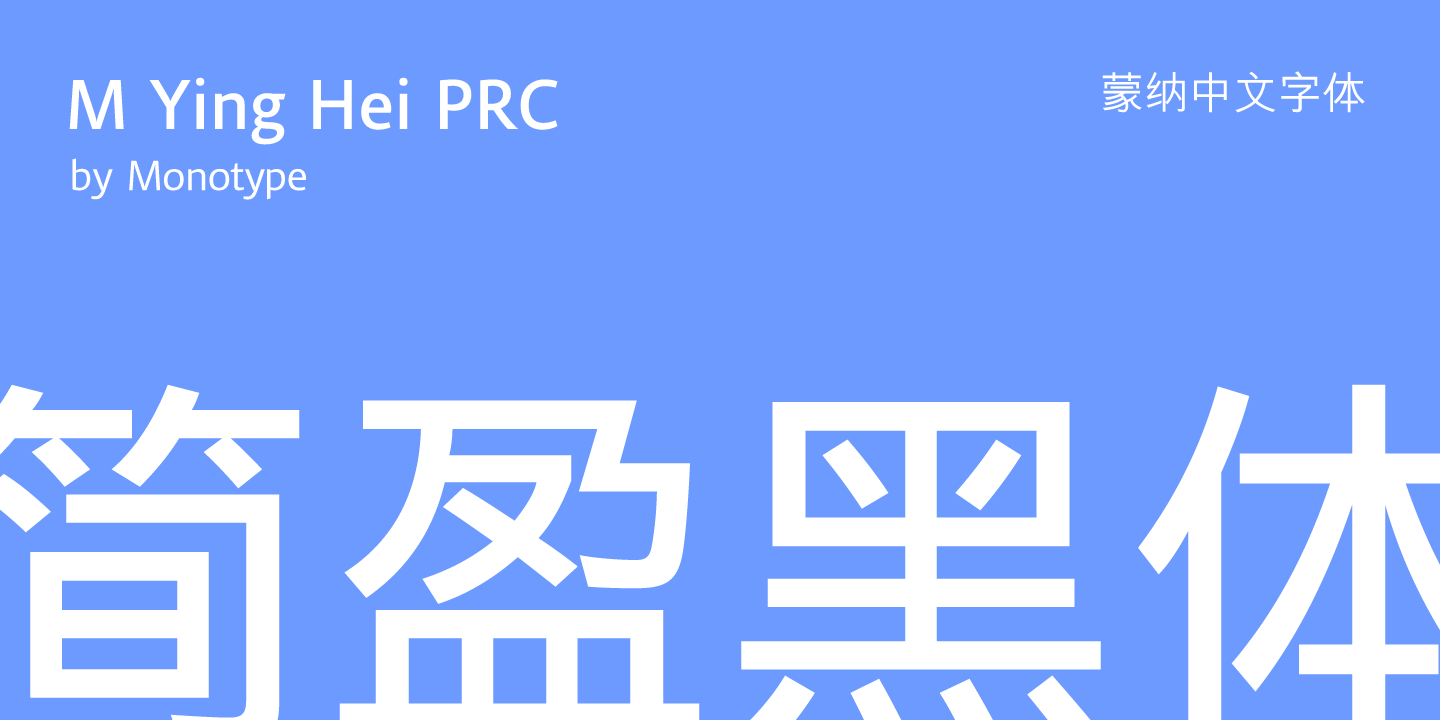
This modern Chinese typeface is perfect for Chinese branding, bilingual publications, Asian restaurant menus, cultural events, Chinese websites, educational materials, business communications, multinational corporations, and contemporary logo design.
M Ying Hei PRC Font brings excitement to your design projects with its contemporary elegance and cultural authenticity. This sophisticated Chinese font features clean, modern letterforms that perfectly balance traditional Chinese aesthetics with contemporary design principles, making it ideal for brands seeking to communicate effectively with Chinese-speaking audiences. The font's harmonious structure and excellent readability ensure professional presentation across digital and print media.
The M Ying Hei PRC Font family includes light, regular, medium, bold, and heavy weights, providing designers with comprehensive typographic options for creating dynamic Chinese language communications. Each weight maintains the font's cultural integrity while offering varied visual emphasis for different content hierarchies and brand applications.
Enhance your global communications with M Ying Hei PRC Font Free Download today. This versatile typeface combines cultural respect with modern functionality, making it essential for international brands entering Chinese markets. Whether you're developing bilingual marketing materials, creating Chinese educational content, or designing culturally sensitive branding systems, this font delivers authentic results with its refined character and professional quality.
The optimized character set includes traditional and simplified Chinese characters. Download M Ying Hei PRC Font now and bridge cultural communications with this sophisticated typography solution that honors Chinese heritage while embracing contemporary design standards.